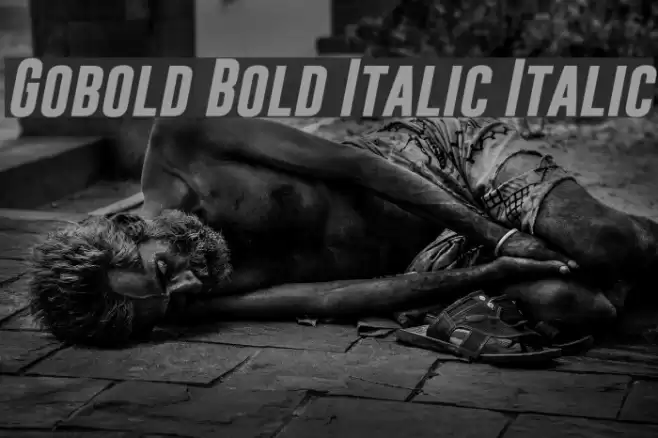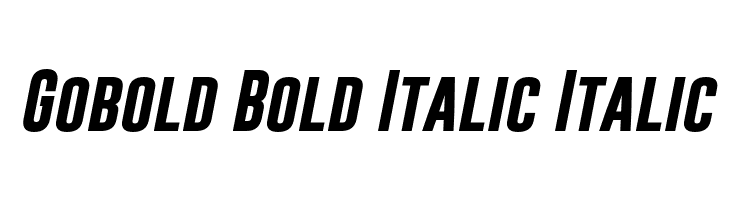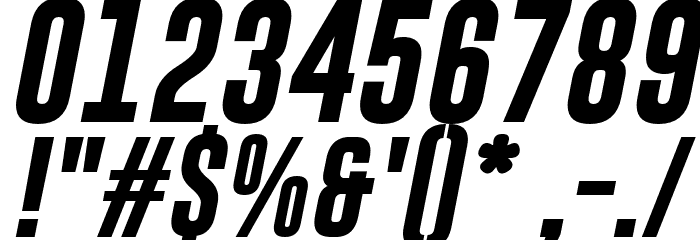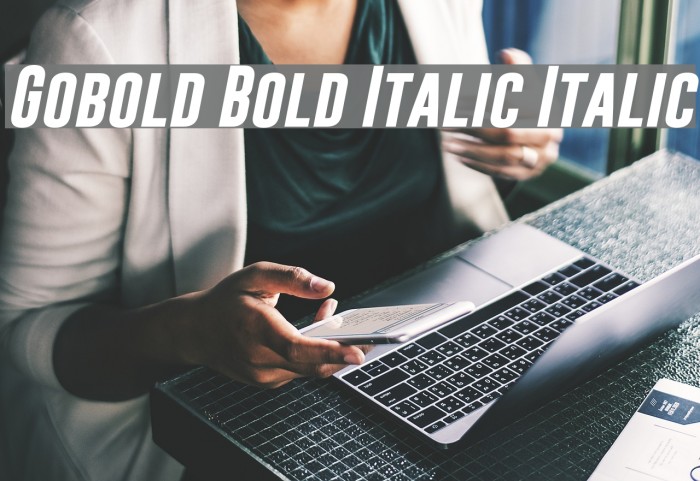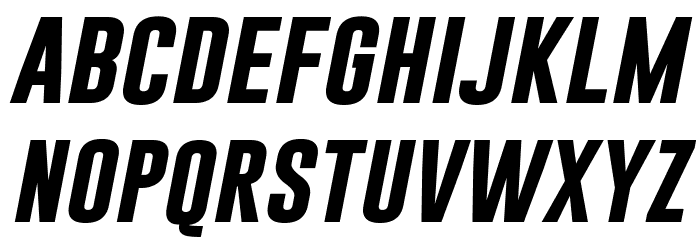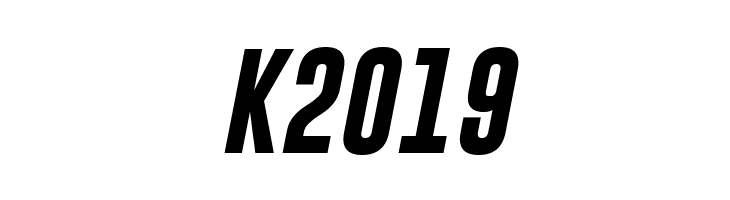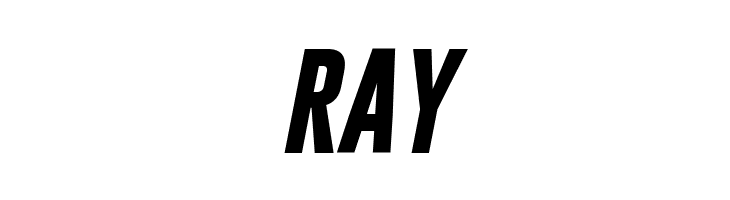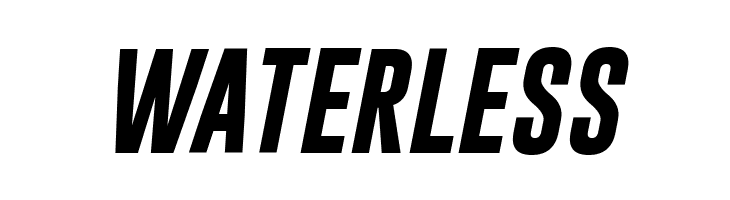
Gobold Bold Italic Italic Font
Gobold Bold Italic Italic Description
This font features a bold and italicized style, characterized by its strong, dynamic appearance. The letters are slanted, adding a sense of motion and urgency. The strokes are thick and consistent, providing a robust and impactful look. The uppercase and lowercase letters maintain a uniform width, ensuring readability and balance. The numerals and special characters are designed to match the bold and italicized theme, making them suitable for attention-grabbing headlines or titles. The overall aesthetic is modern and assertive, ideal for projects that require a bold statement.
A bold, italicized font with a dynamic and modern style from Uncategorized fonts.